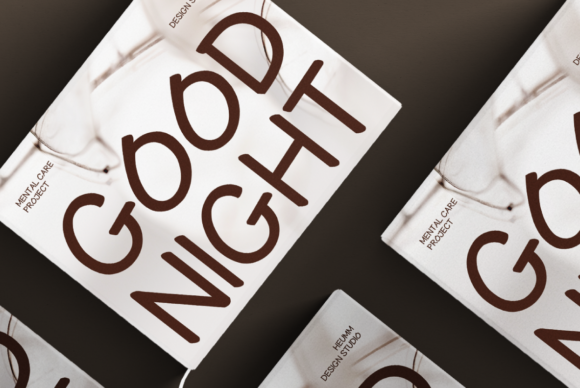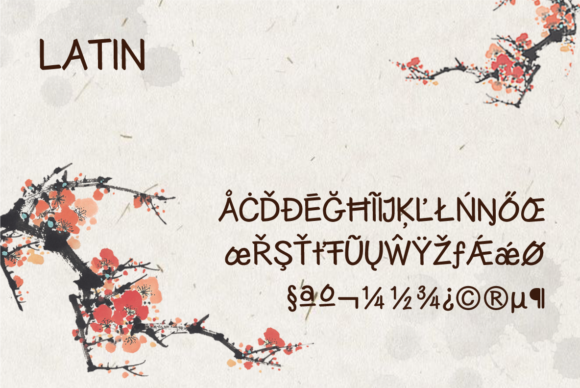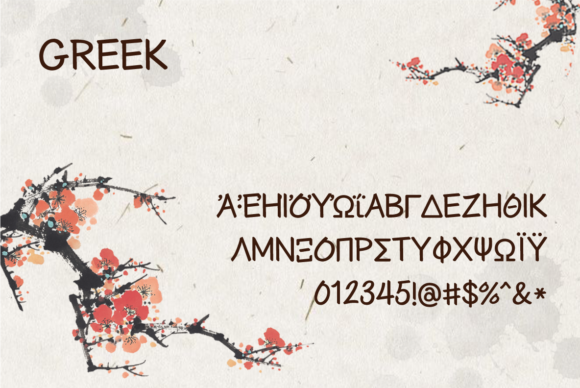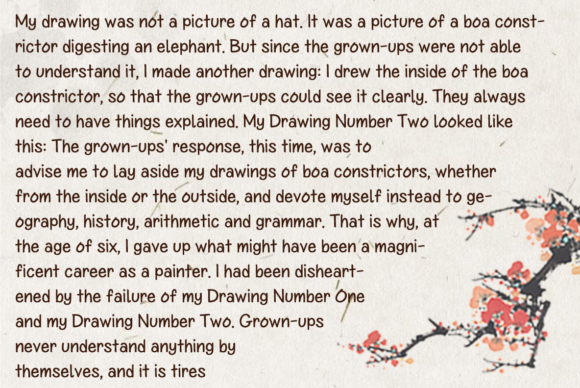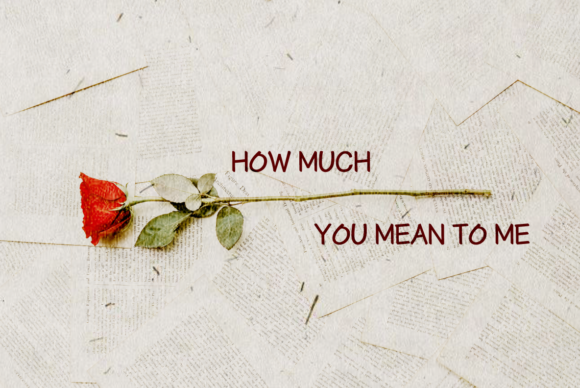
Introducing Geulwoll Font: The Cool and Casual Display Font You Need
Are you tired of using the same old fonts in your designs? Do you want to add a touch of personality and whimsy to your creations? Look no further than Geulwoll Font, a cool and casual display font that’s sure to elevate your font library. In this article, we’ll dive into the world of Geulwoll Font and explore its features, benefits, and uses.
What is Geulwoll Font?
Geulwoll Font is a modern display font designed to add a touch of playfulness and sophistication to your designs. With its unique and quirky style, Geulwoll Font is perfect for designers, crafters, and anyone looking to add some personality to their creations. Whether you’re working on a branding project, a social media graphic, or a craft project, Geulwoll Font is sure to make your design stand out.
Key Features of Geulwoll Font
So, what makes Geulwoll Font so special? Here are some of its key features:
- Cool and Casual Style: Geulwoll Font has a relaxed, laid-back vibe that’s perfect for designs that need a touch of personality.
- Unique and Quirky: Geulwoll Font has a one-of-a-kind style that’s sure to make your designs stand out from the crowd.
- Versatile: Geulwoll Font can be used for a wide range of projects, from branding and advertising to social media graphics and craft projects.
- Easy to Read: Despite its playful style, Geulwoll Font is easy to read and understand, making it perfect for use in a variety of contexts.
Benefits of Using Geulwoll Font
So, why should you choose Geulwoll Font for your next project? Here are some of the benefits of using this amazing font:
- Adds Personality to Your Designs: Geulwoll Font is the perfect way to add some personality and whimsy to your designs.
- Elevates Your Brand: With its unique and quirky style, Geulwoll Font can help elevate your brand and make it stand out from the competition.
- Perfect for Social Media Graphics: Geulwoll Font is perfect for use in social media graphics, where you want to grab the attention of your audience and make your content stand out.
- Great for Crafting and DIY Projects: Geulwoll Font is also perfect for use in crafting and DIY projects, where you want to add a personal touch to your creations.
How to Use Geulwoll Font
- Use it for Headings and Titles: Geulwoll Font is perfect for use in headings and titles, where you want to grab the attention of your audience and make your content stand out.